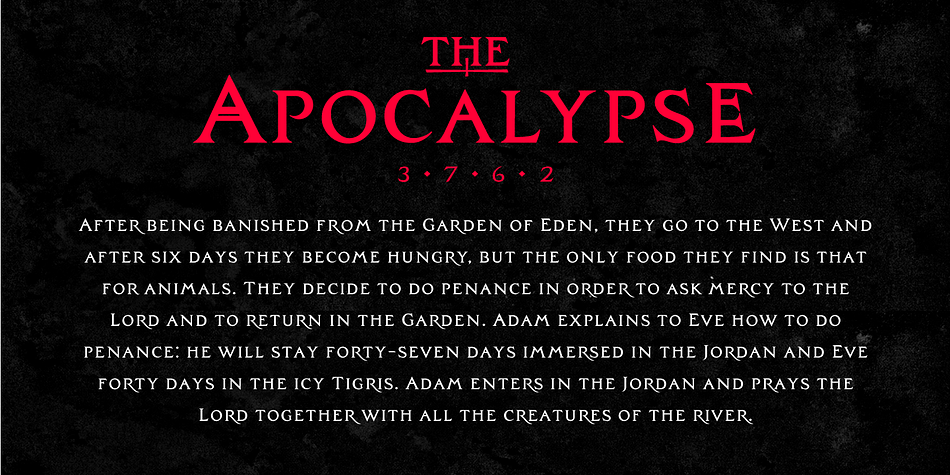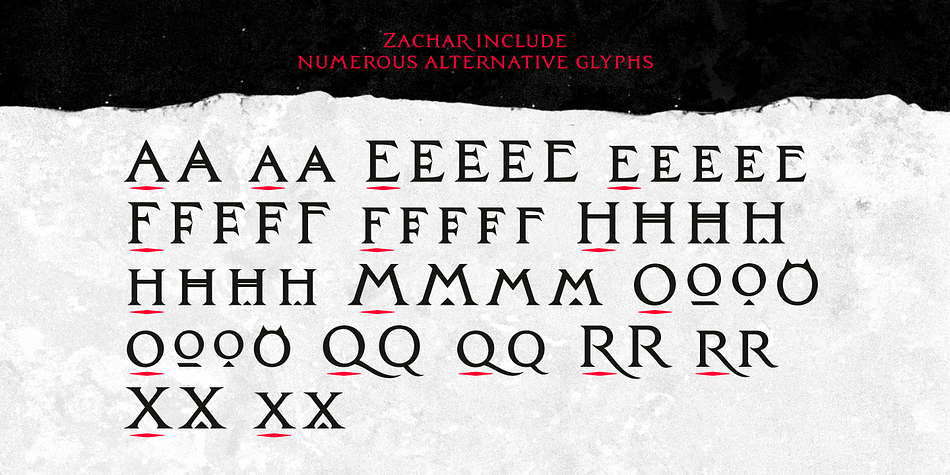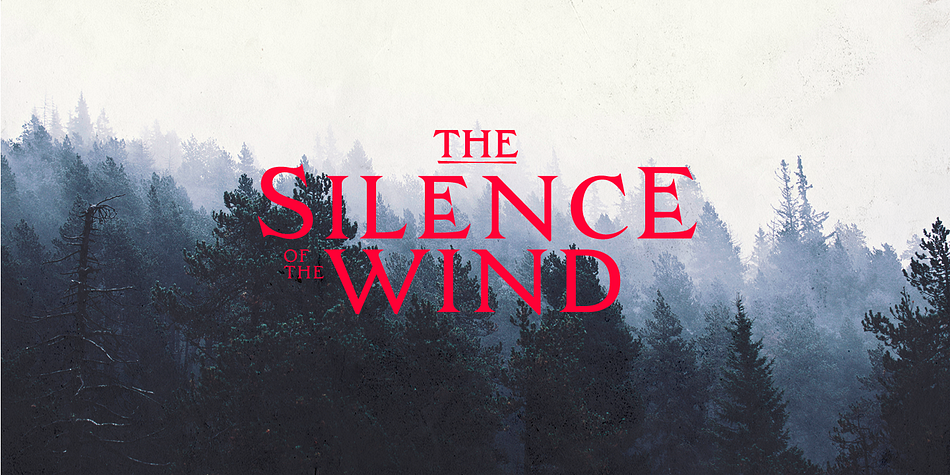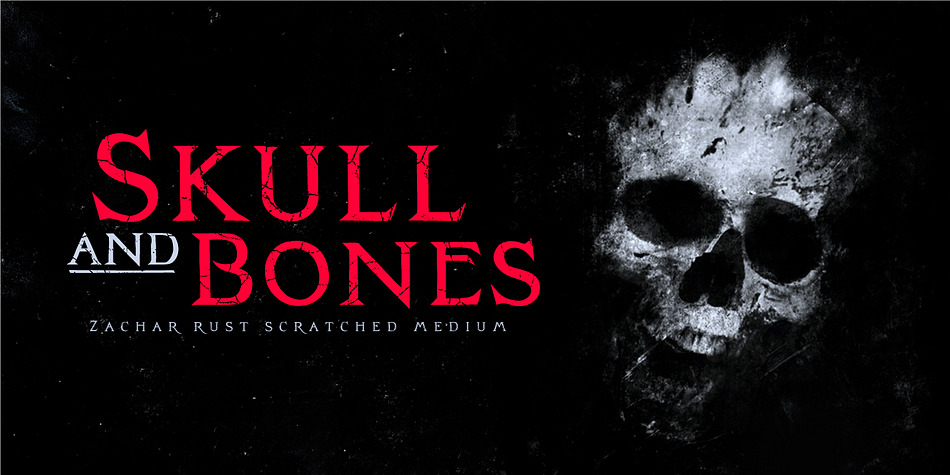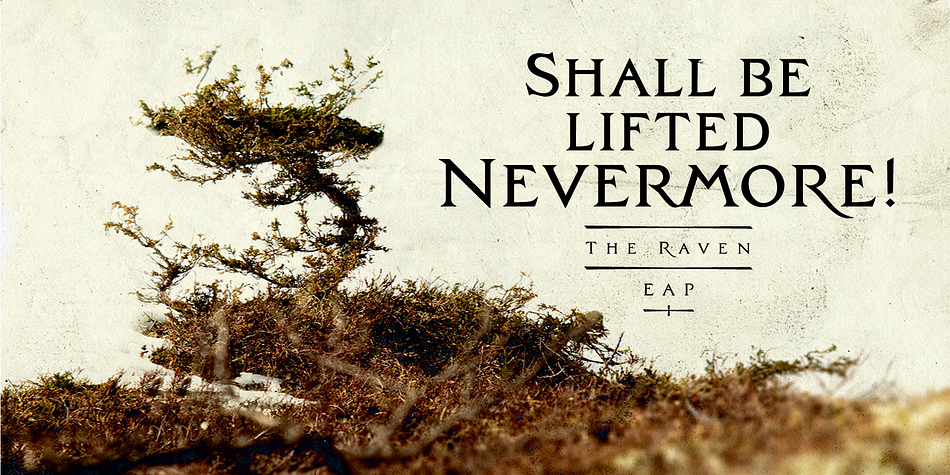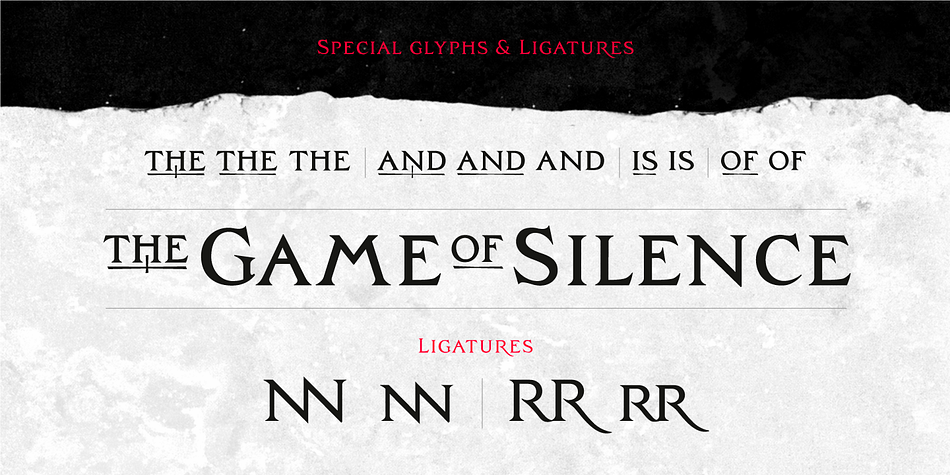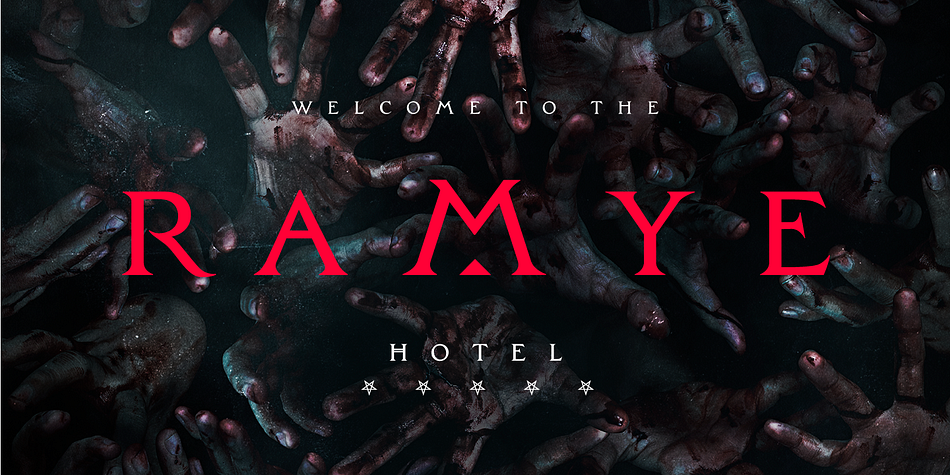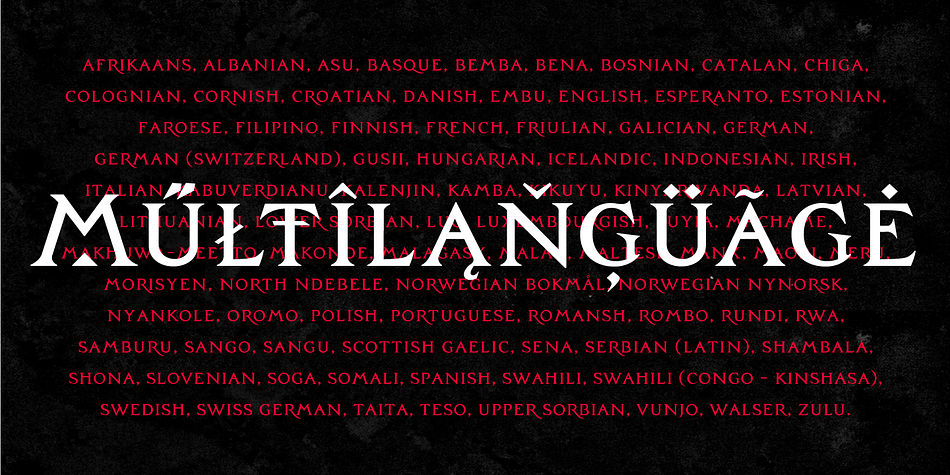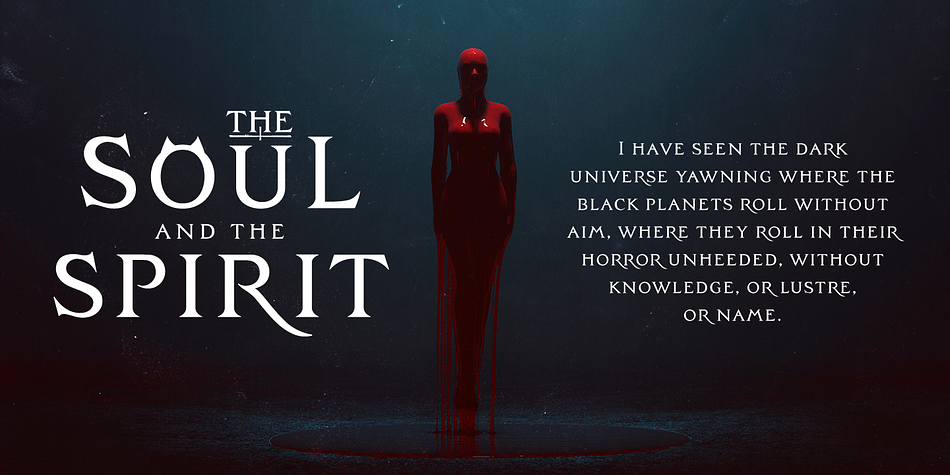
Designed by Rosario Nocera, Zachar is a display serif and serif font family. This typeface has eight styles and was published by Rosario Nocera.
Zachar is a Roman typefaces designed for the horror and thriller genre but thanks to its strong distinctiveness it’s also suitable for branding. Zachar is available in Regular and Medium weights in four versions: Regular, Rust, Scratched and Rust Scratched, it also offers a large selection of alternative letters, special glyphs and ligatures. Zachar has a sinister elegance and is suitable for display works, posters and billboards.